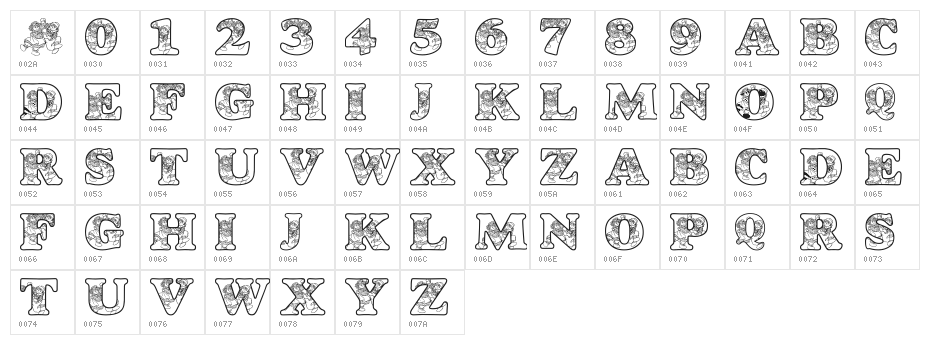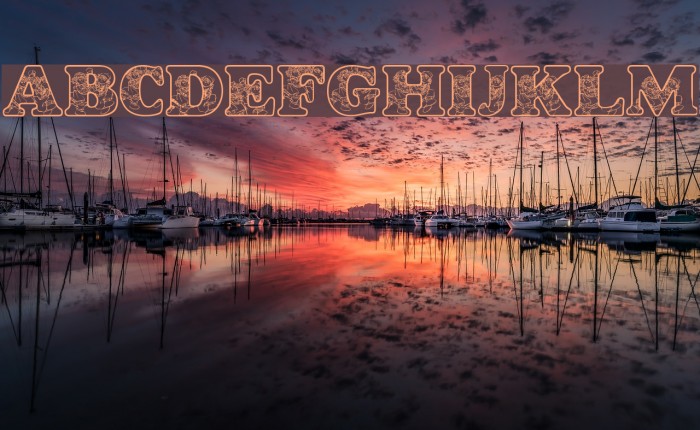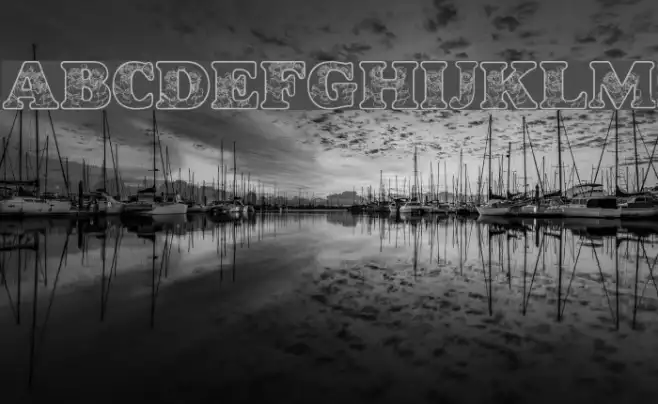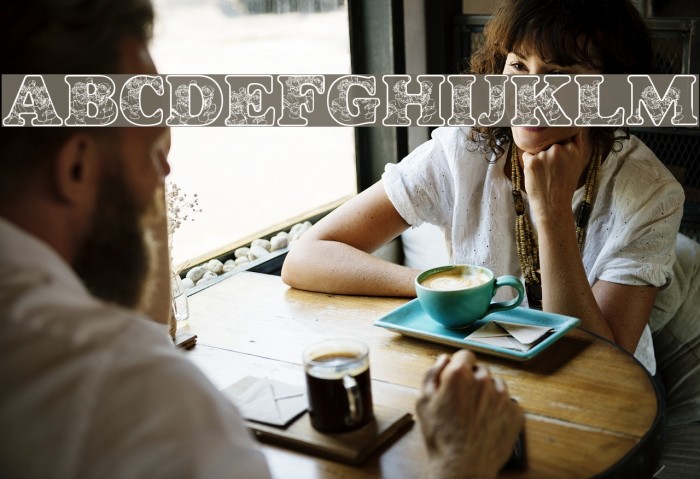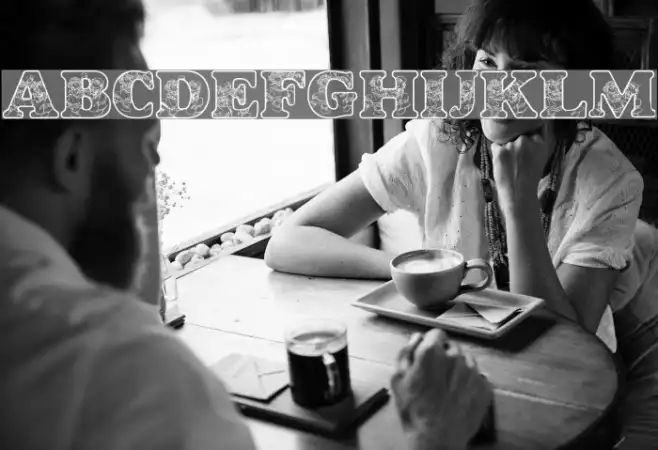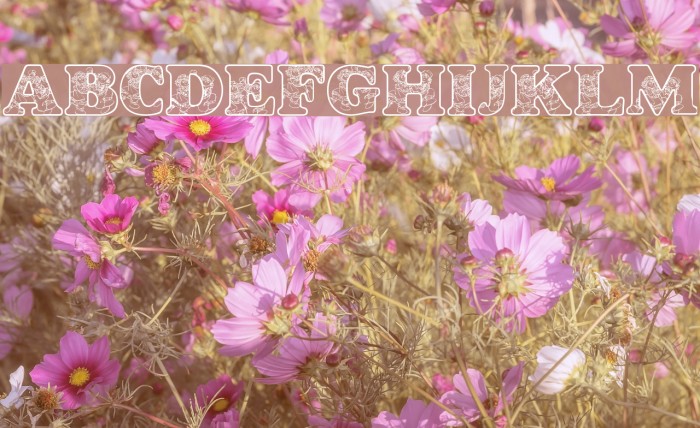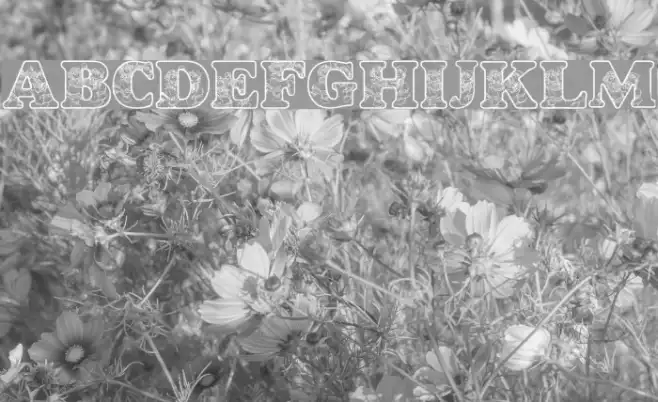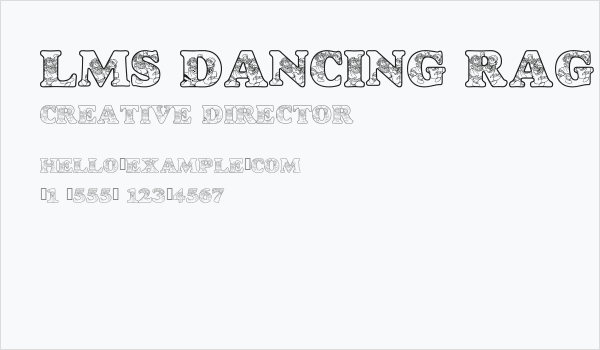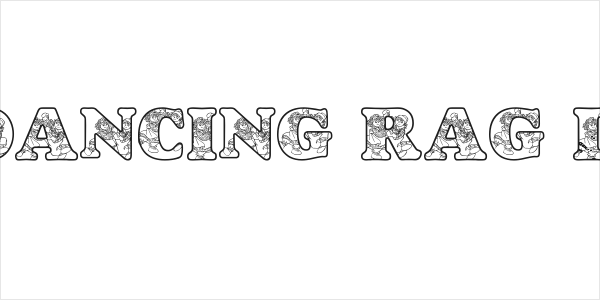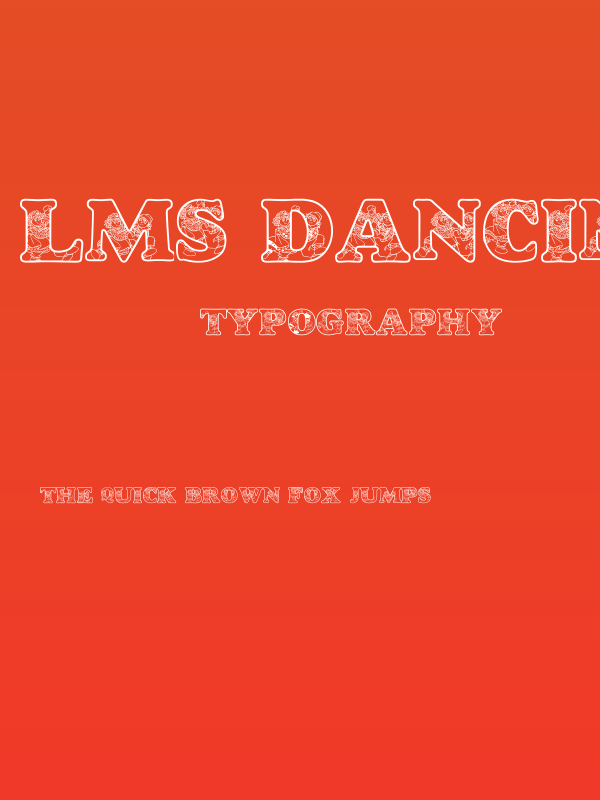
LMS Dancing Rag Dolls Font
LMS Dancing Rag Dolls Description
This playful and whimsical font features a decorative style with intricate patterns and illustrations embedded within each character. The letters are bold and eye-catching, making them ideal for creative and fun projects. The design incorporates elements that resemble dancing rag dolls, adding a unique and charming touch. The font maintains a consistent structure across uppercase and lowercase letters, as well as numbers, ensuring readability while still offering a distinct artistic flair. The special characters are also adorned with similar decorative elements, enhancing the overall cohesive look.
| Proposed Projects | Ideal for children's book covers, playful posters, party invitations, and creative branding projects. |